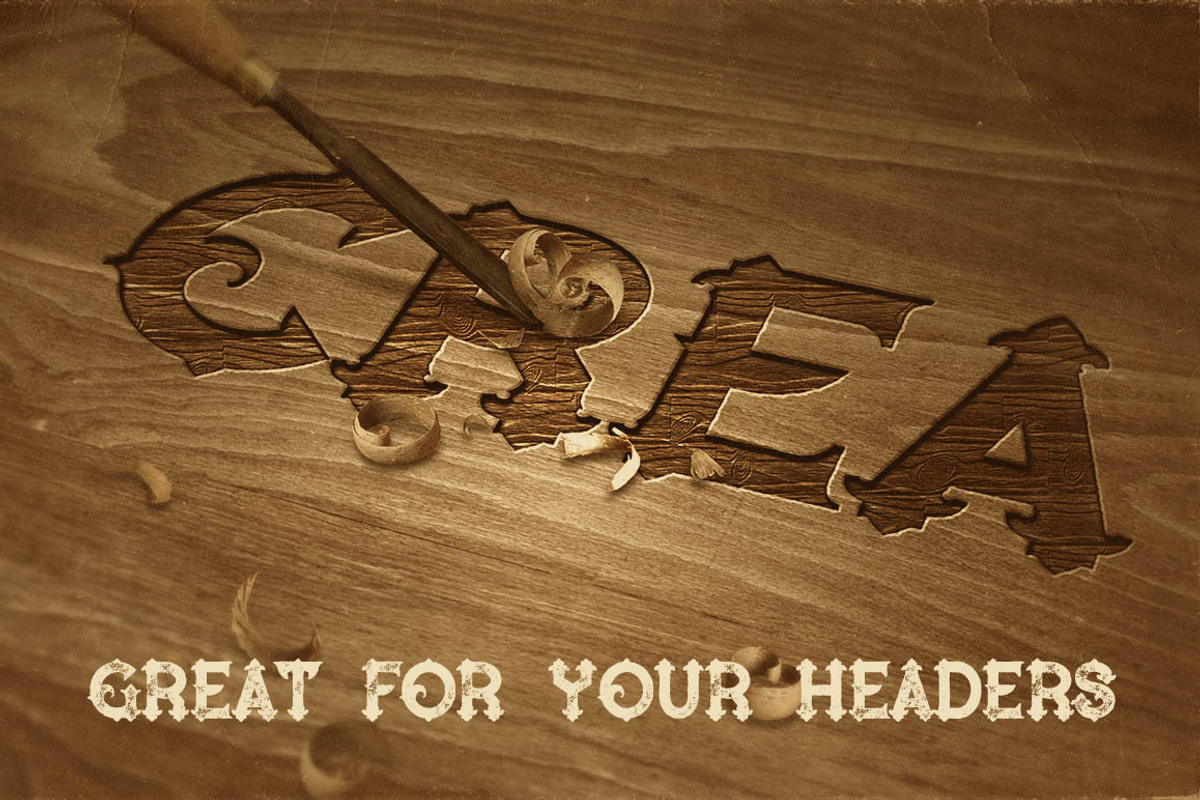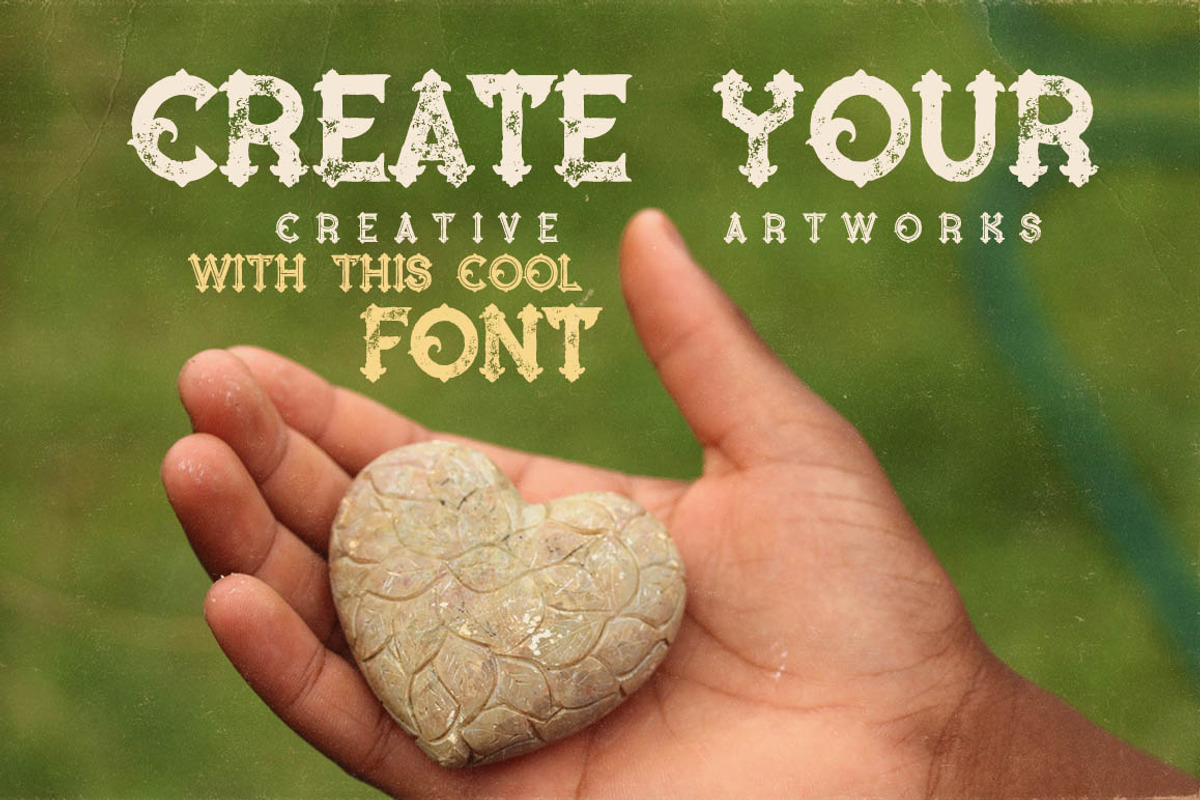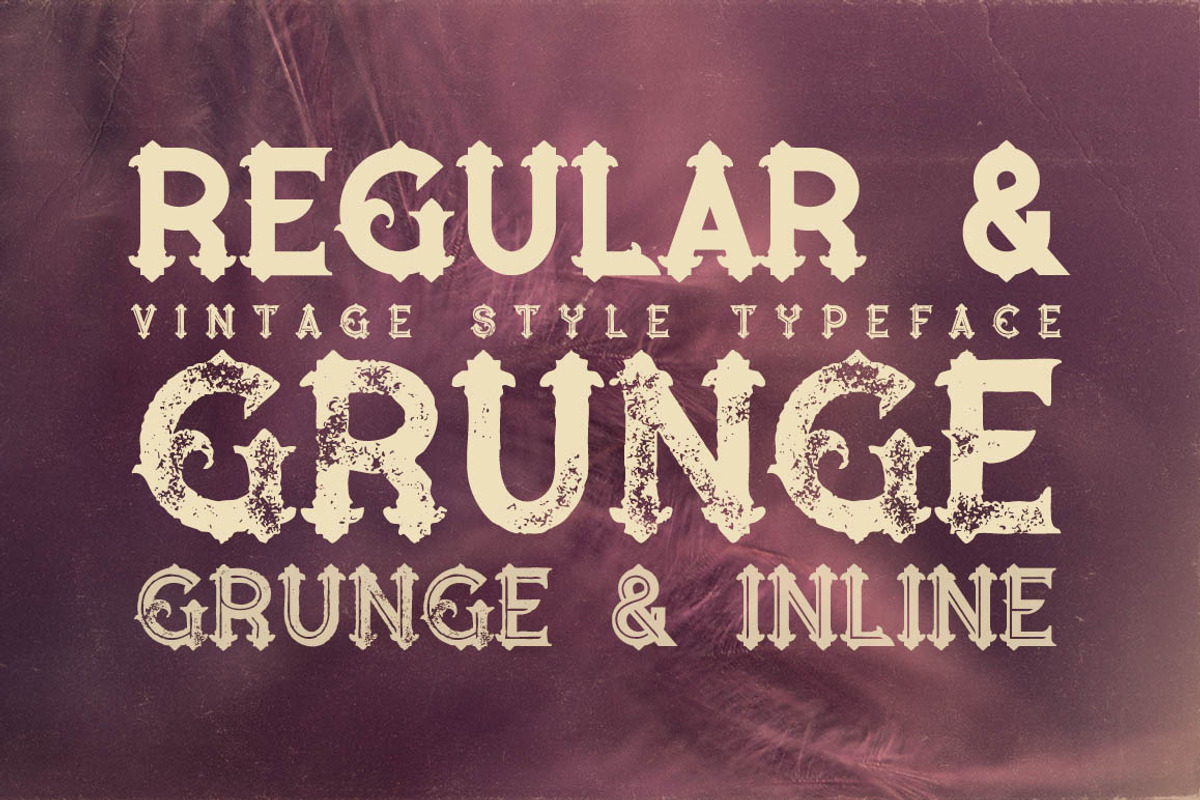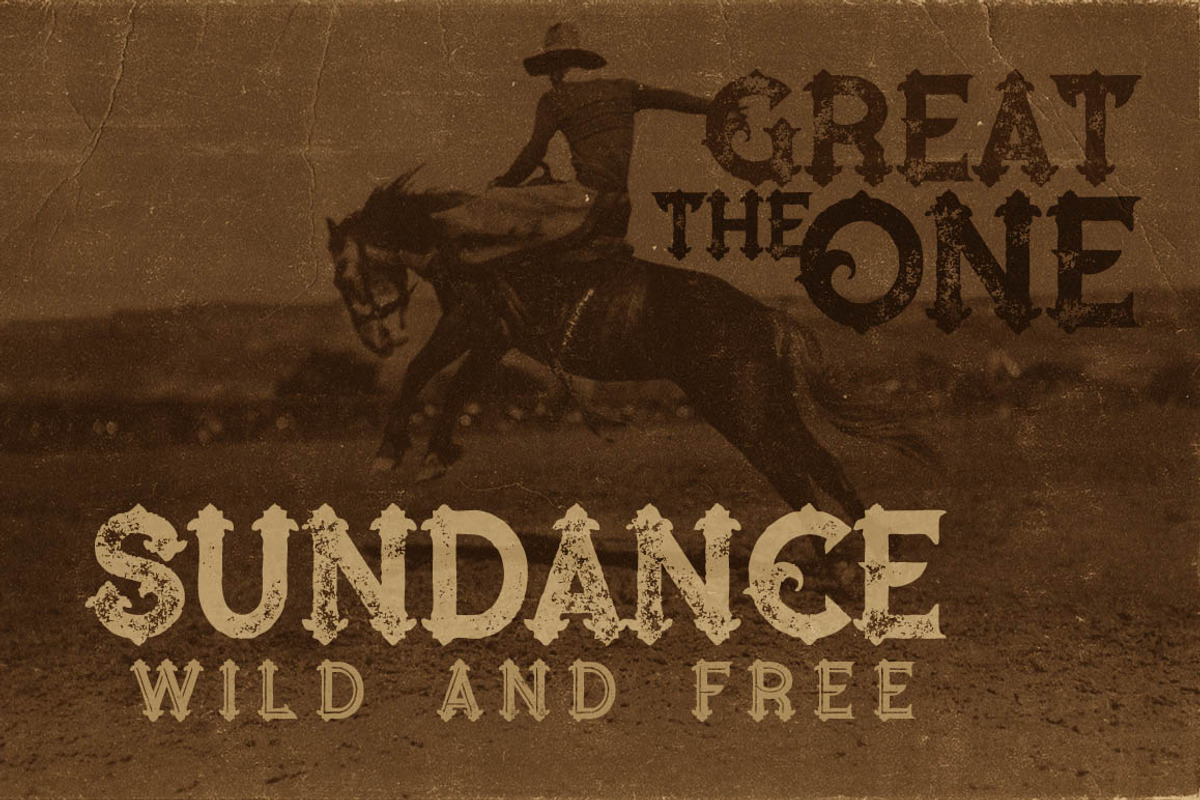
Blue North - Vintage Style Font
Blue North - Vintage Style Font by JumboDesign is a font selected for branding, posters, packaging, typography.
Why Blue North - Vintage Style Font is worth a look
Blue North - Vintage Style Font by JumboDesign fits naturally into Branding, posters, packaging, typography.